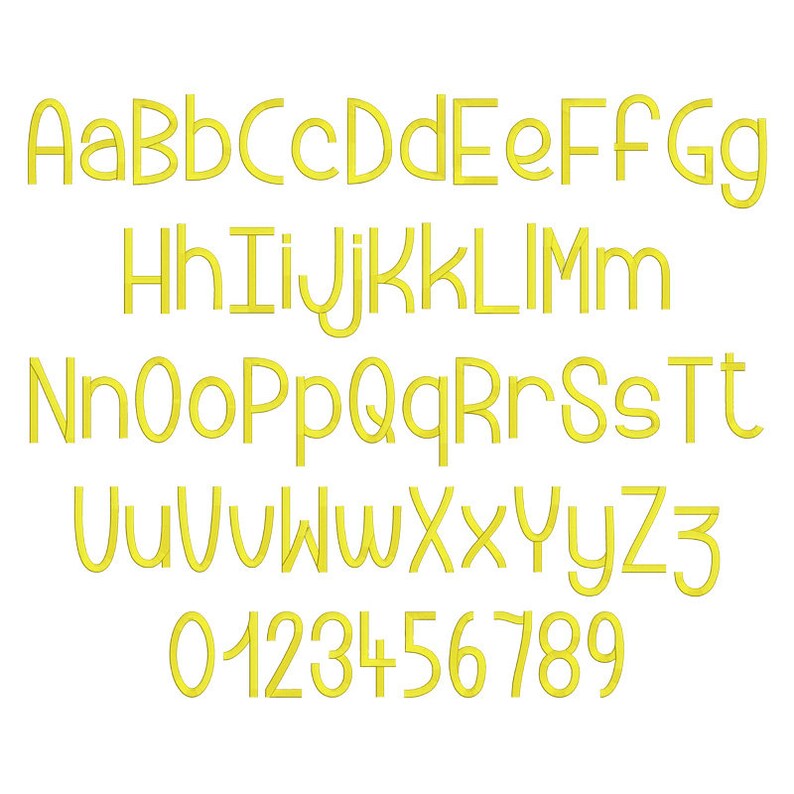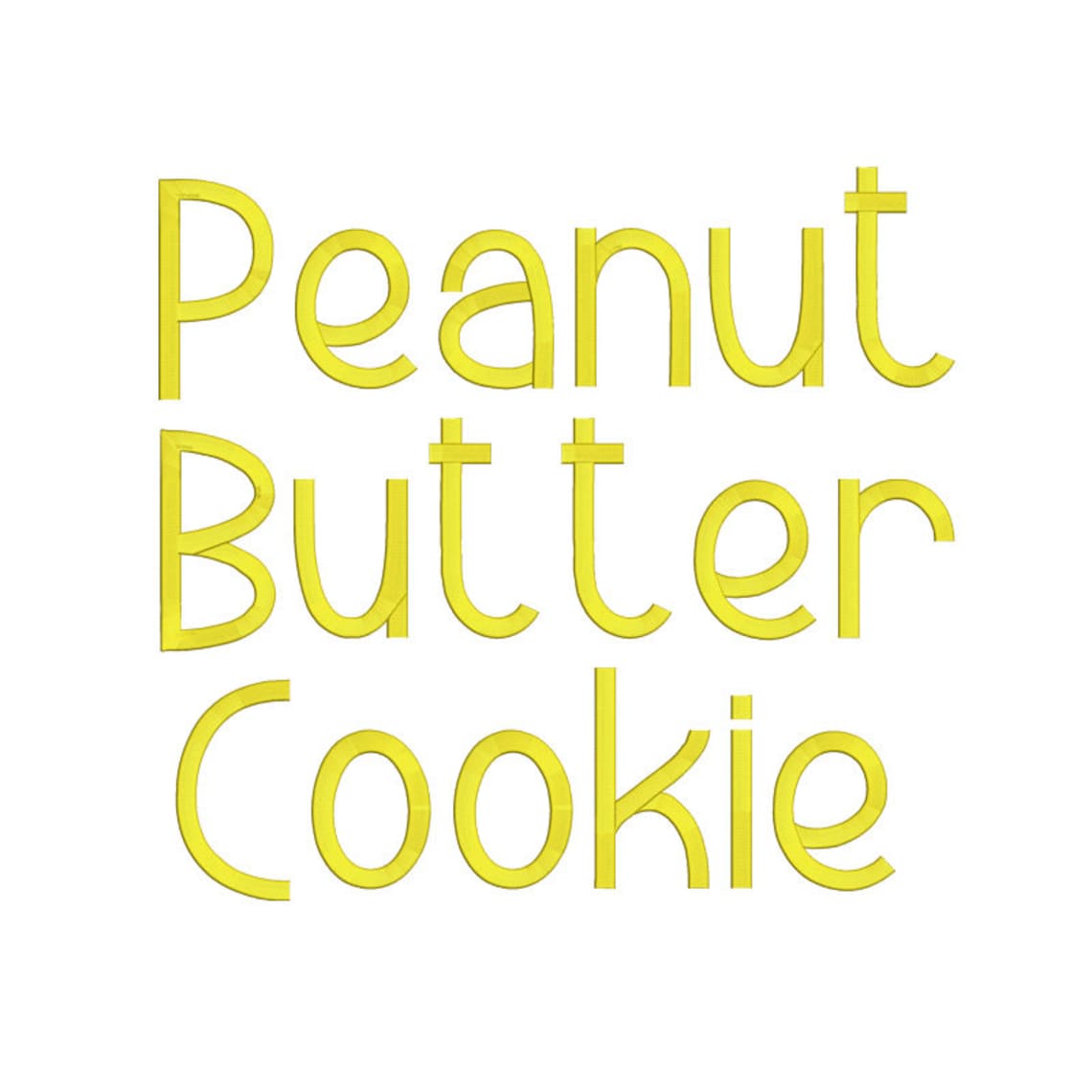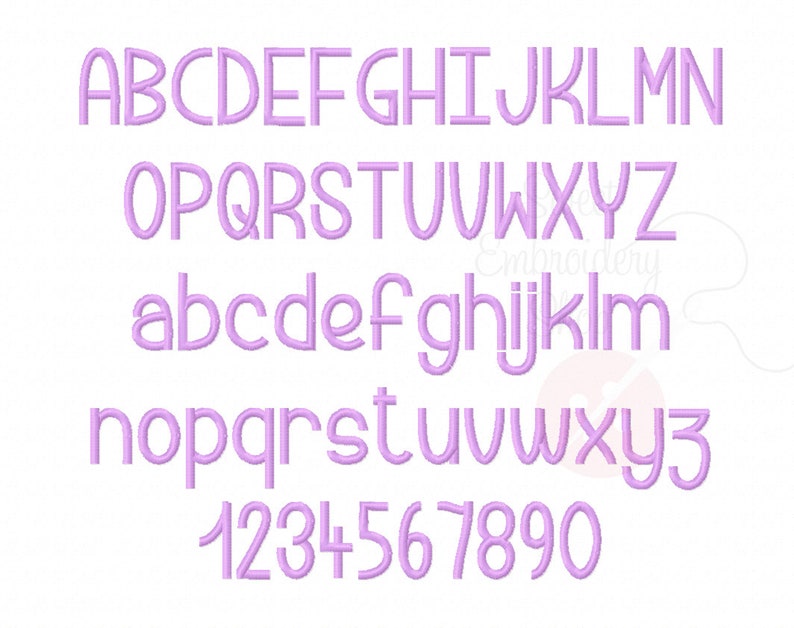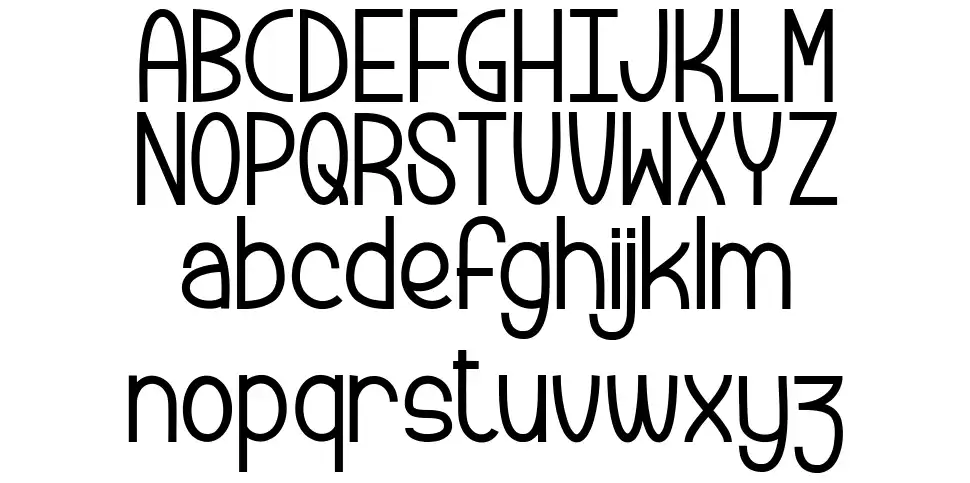
Peanut Butter Cookies Embroidery Font . All of our font alphabets are 100% manually digitized to bring you maximum stitch quality. Uppercase letters, lowercase letters stitch type: .5 inch,.75 inch, 1 inch, 1.25 inch, 1.5 inch, and 2 inch. Perfect for making names and phrases on clothing, towels, backpacks, and more! .75″, 1″, 1.25″, 1.5″, 2″, 2.5″ included: Satin stitch & split satin stitch The peanut butter cookies font has been downloaded 29,296 times. A license is required for any commercial or promotional use. Download and install the peanut butter cookies font by dcoxy. 129,783 downloads (3 yesterday) free for personal use. Looking for peanut butter cookies embroidery font online in india? Check out our peanut butter cookies embroidery font selection for the very best in unique or custom, handmade pieces from our shops. This set is so much fun for kids or adults! Shop for the best peanut butter cookies embroidery font from our collection of. Super cute, chunky print font!
Peanut Butter Cookies Embroidery Font All of our font alphabets are 100% manually digitized to bring you maximum stitch quality. Perfect for making names and phrases on clothing, towels, backpacks, and more! Font purchased and licensed for embroidery digitizing from dcoxy. This set is so much fun for kids or adults! Super cute, chunky print font! .5 inch,.75 inch, 1 inch, 1.25 inch, 1.5 inch, and 2 inch. Satin stitch & split satin stitch Shop for the best peanut butter cookies embroidery font from our collection of. .75″, 1″, 1.25″, 1.5″, 2″, 2.5″ included: A license is required for any commercial or promotional use. Check out our peanut butter cookies embroidery font selection for the very best in unique or custom, handmade pieces from our shops. 129,783 downloads (3 yesterday) free for personal use. The peanut butter cookies font has been downloaded 29,296 times. Looking for peanut butter cookies embroidery font online in india? All of our font alphabets are 100% manually digitized to bring you maximum stitch quality. Uppercase letters, lowercase letters stitch type:
5 Sizes Peanutbutter Cookies Font Embroidery Fonts BX 9 Etsy Peanut Butter Cookies Embroidery Font Download and install the peanut butter cookies font by dcoxy. .75″, 1″, 1.25″, 1.5″, 2″, 2.5″ included: Super cute, chunky print font! Perfect for making names and phrases on clothing, towels, backpacks, and more! Font purchased and licensed for embroidery digitizing from dcoxy. Satin stitch & split satin stitch A license is required for any commercial or promotional use. This. Peanut Butter Cookies Embroidery Font.
Peanut Butter Cookie Embroidery Font 5 Size Font Machine Etsy Peanut Butter Cookies Embroidery Font All of our font alphabets are 100% manually digitized to bring you maximum stitch quality. Super cute, chunky print font! Shop for the best peanut butter cookies embroidery font from our collection of. Download and install the peanut butter cookies font by dcoxy. .5 inch,.75 inch, 1 inch, 1.25 inch, 1.5 inch, and 2 inch. Satin stitch & split satin. Peanut Butter Cookies Embroidery Font.
Peanut Butter Cookies Embroidery Font Butter cookies, Embroidery Peanut Butter Cookies Embroidery Font .5 inch,.75 inch, 1 inch, 1.25 inch, 1.5 inch, and 2 inch. 129,783 downloads (3 yesterday) free for personal use. Looking for peanut butter cookies embroidery font online in india? .75″, 1″, 1.25″, 1.5″, 2″, 2.5″ included: The peanut butter cookies font has been downloaded 29,296 times. A license is required for any commercial or promotional use. Check out our. Peanut Butter Cookies Embroidery Font.
Peanut Butter Font All Free Fonts Peanut Butter Cookies Embroidery Font Perfect for making names and phrases on clothing, towels, backpacks, and more! .75″, 1″, 1.25″, 1.5″, 2″, 2.5″ included: A license is required for any commercial or promotional use. Check out our peanut butter cookies embroidery font selection for the very best in unique or custom, handmade pieces from our shops. Font purchased and licensed for embroidery digitizing from dcoxy.. Peanut Butter Cookies Embroidery Font.
Peanut Butter Embroidery Font 5 sizes machine by FiveStarFonts Machine Peanut Butter Cookies Embroidery Font Uppercase letters, lowercase letters stitch type: Perfect for making names and phrases on clothing, towels, backpacks, and more! All of our font alphabets are 100% manually digitized to bring you maximum stitch quality. .5 inch,.75 inch, 1 inch, 1.25 inch, 1.5 inch, and 2 inch. .75″, 1″, 1.25″, 1.5″, 2″, 2.5″ included: Download and install the peanut butter cookies font. Peanut Butter Cookies Embroidery Font.
Peanut Butter Embroidery Font .75" 1" 1.25" 1.5" 2" 2.5" Stitchtopia Peanut Butter Cookies Embroidery Font Perfect for making names and phrases on clothing, towels, backpacks, and more! Looking for peanut butter cookies embroidery font online in india? This set is so much fun for kids or adults! Uppercase letters, lowercase letters stitch type: Satin stitch & split satin stitch Super cute, chunky print font! 129,783 downloads (3 yesterday) free for personal use. Check out our. Peanut Butter Cookies Embroidery Font.